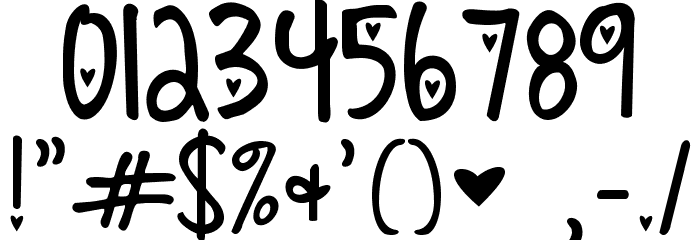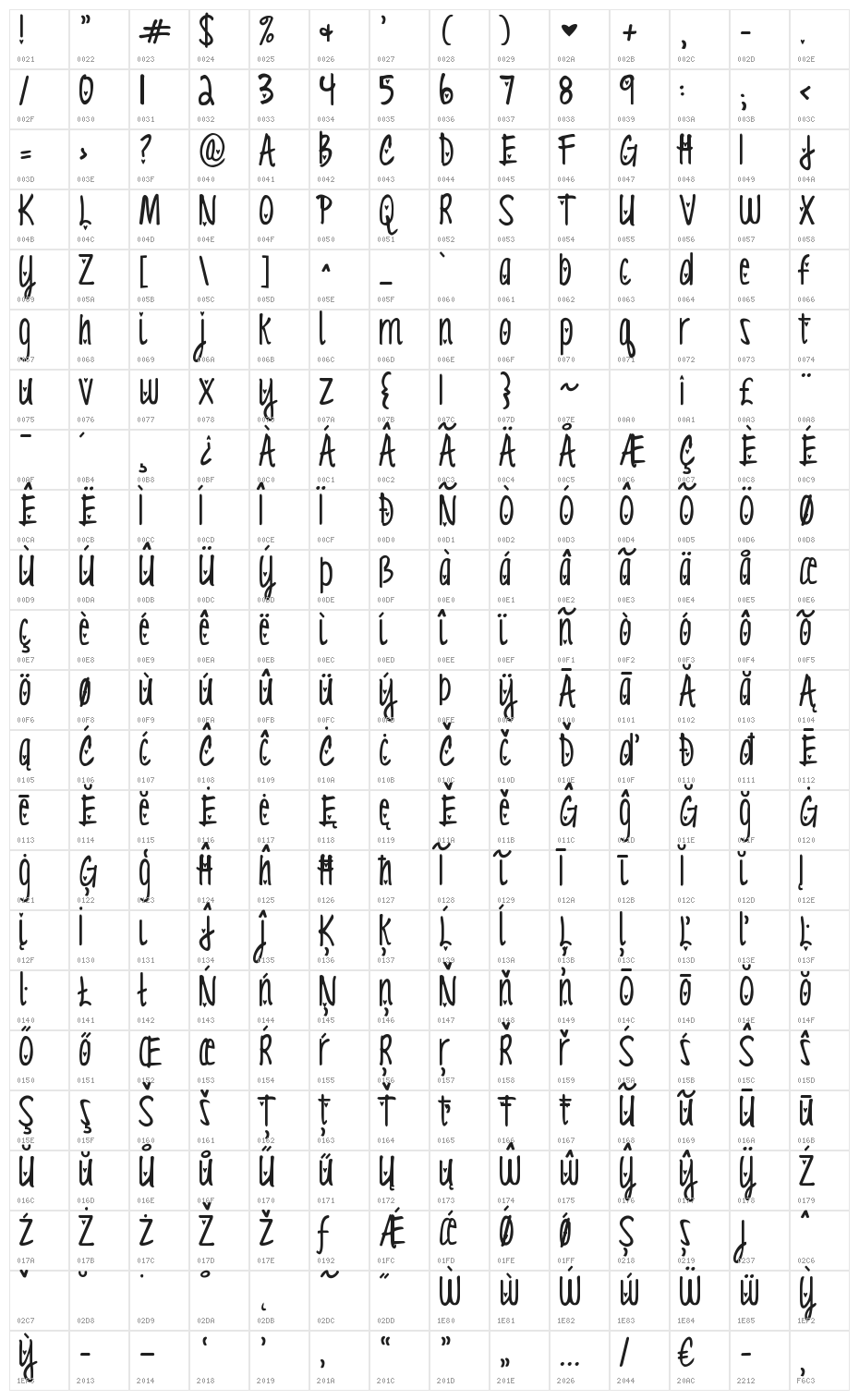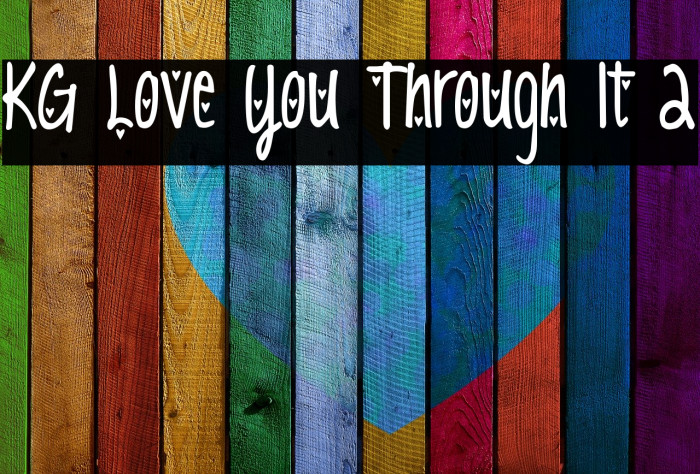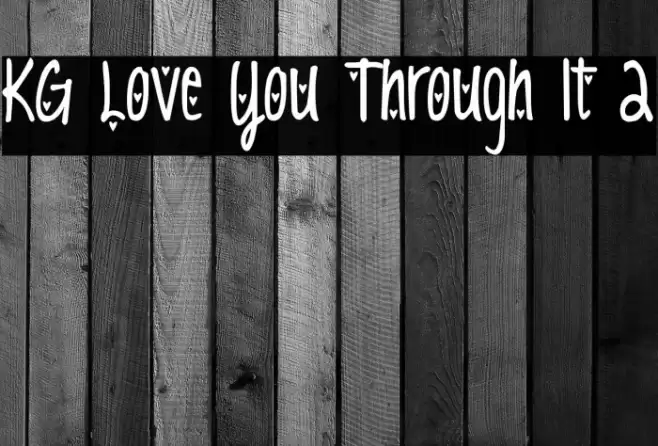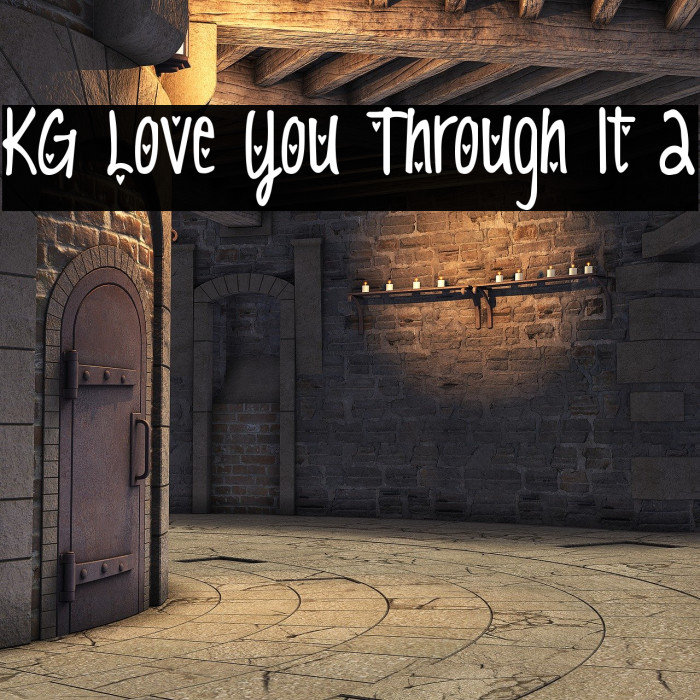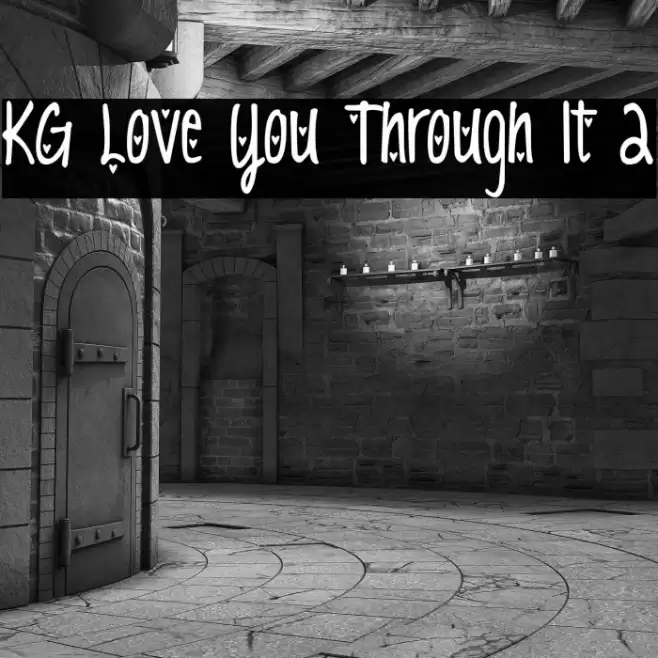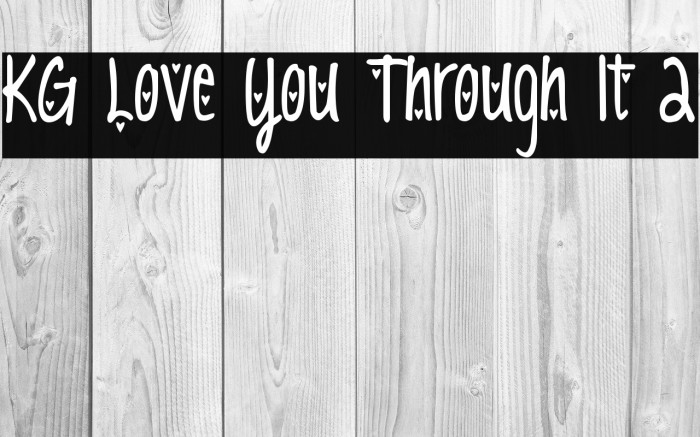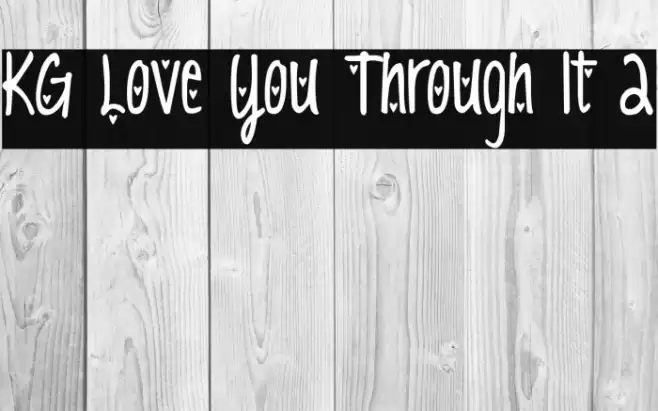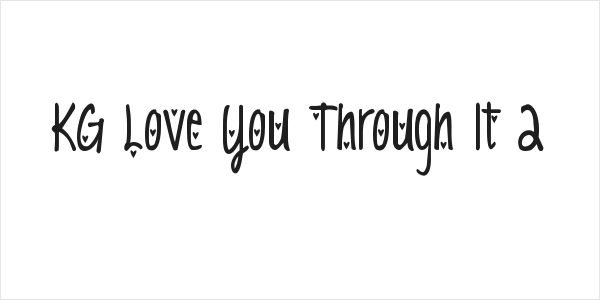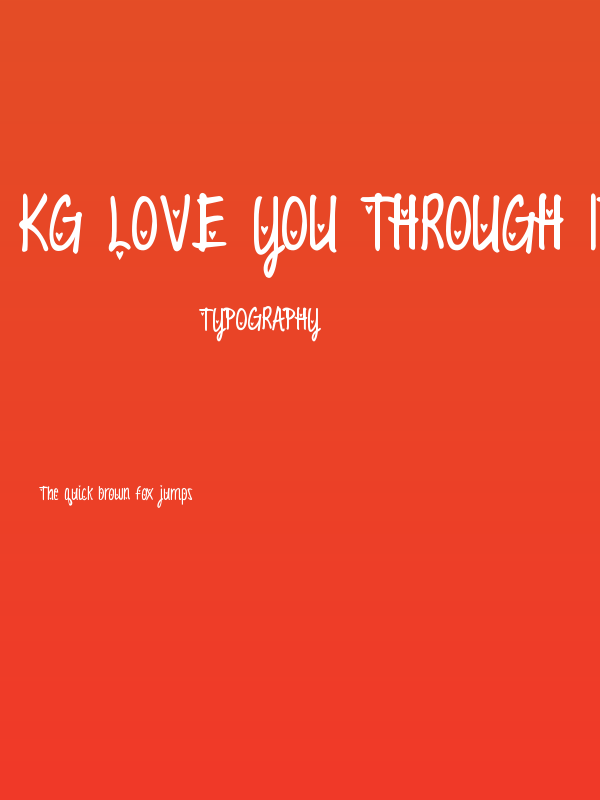
KG Love You Through It 2 Font
KG Love You Through It 2 Description
This playful and whimsical font features a handwritten style with charming heart motifs embedded within the characters. The letters are tall and slightly narrow, giving a unique and friendly appearance. The strokes are smooth and consistent, with a casual flow that adds to its approachable nature. The inclusion of hearts within the letters adds a touch of romance and fun, making it ideal for projects that aim to convey warmth and affection. The numbers and special characters maintain the same playful style, ensuring a cohesive look across all text elements.
| Proposed Projects | Ideal for greeting cards, wedding invitations, love letters, and playful branding projects. |